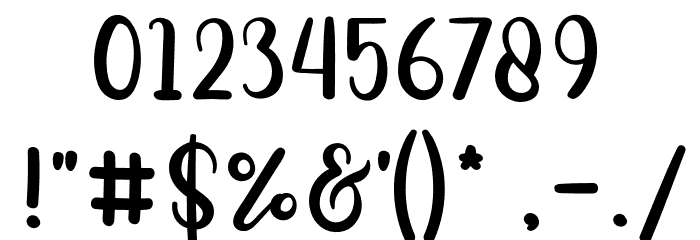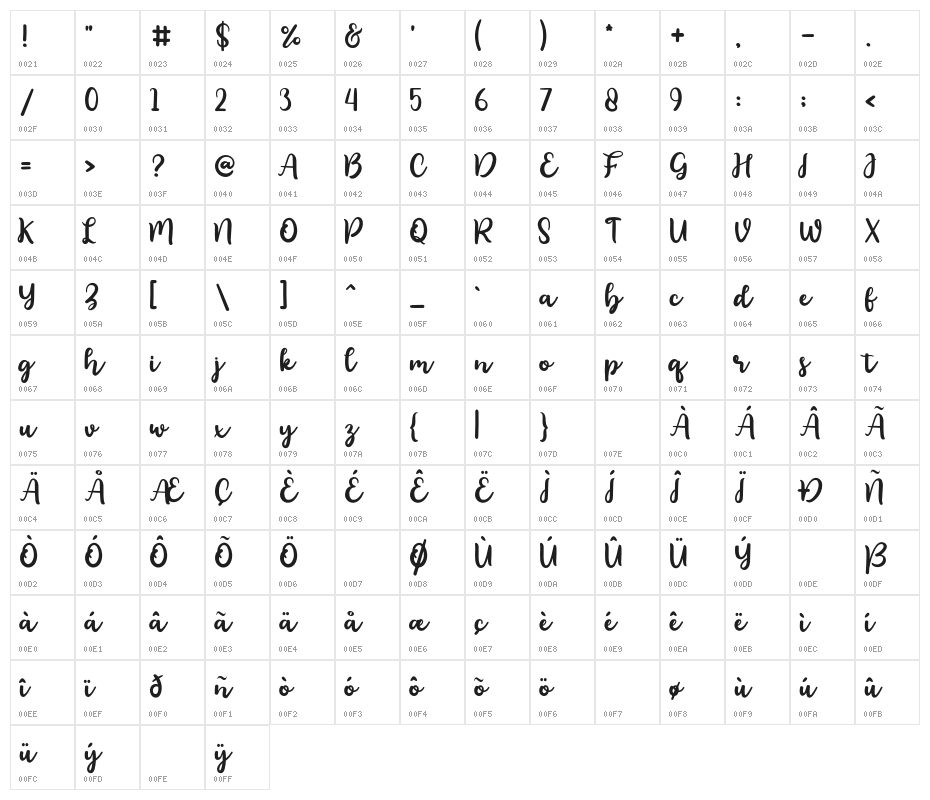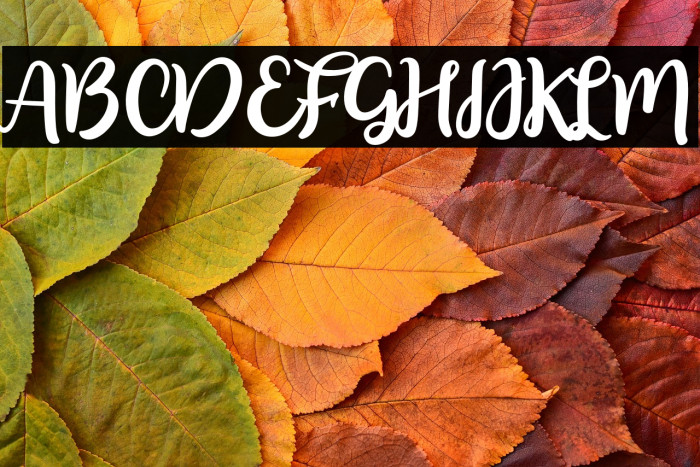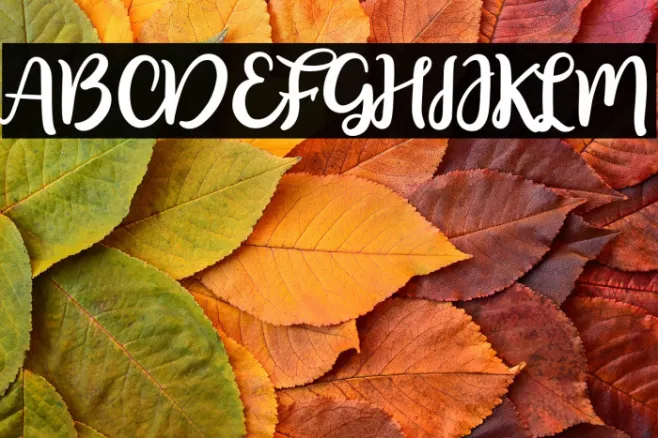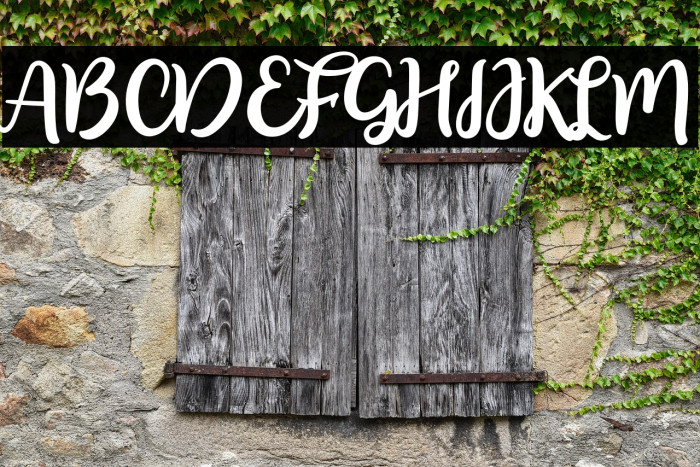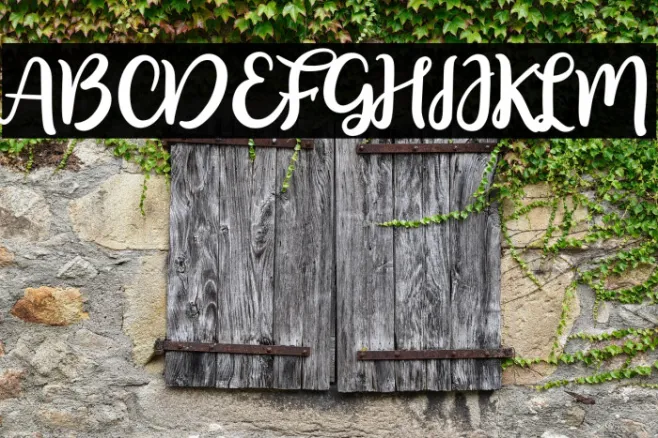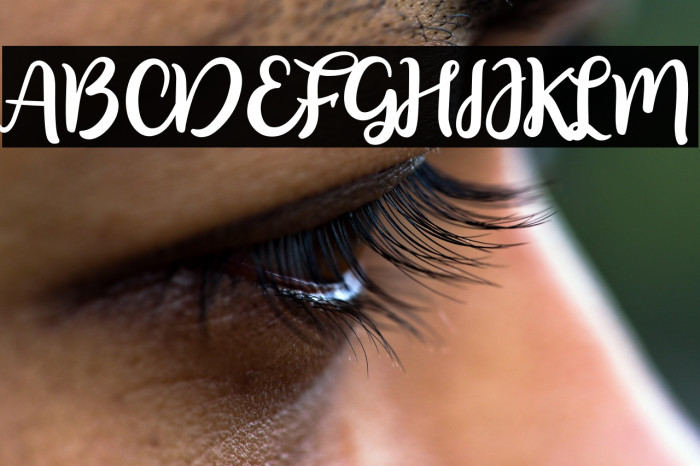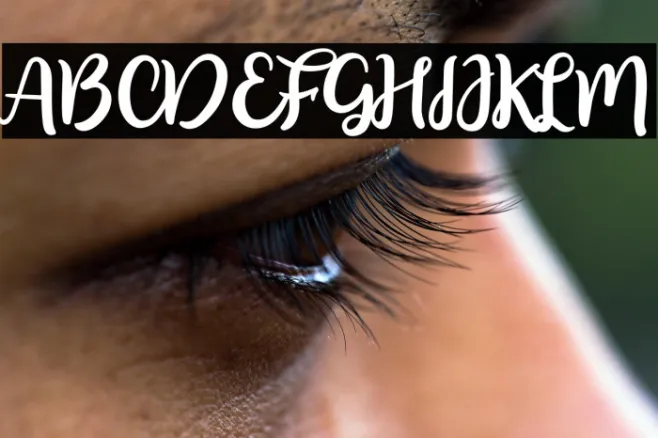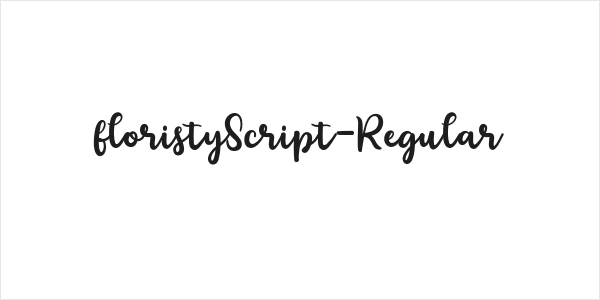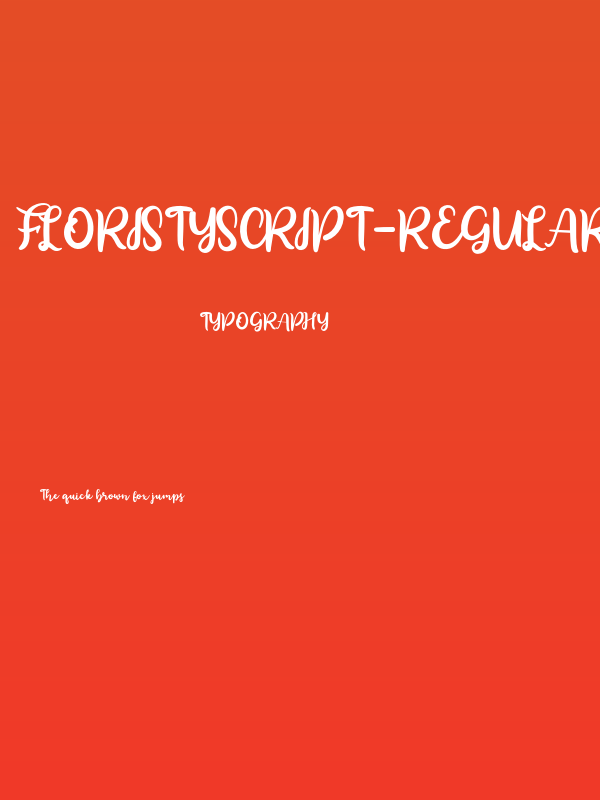
floristyScript-Regular Font
floristyScript-Regular Description
This font features a lively and flowing script style, characterized by its bold and smooth curves. The uppercase letters are elegantly crafted with a sense of movement, while the lowercase letters maintain a consistent flow, enhancing readability. The numbers and special characters are designed to complement the overall script style, adding a touch of sophistication. The font's playful yet refined appearance makes it suitable for creative and artistic projects, providing a personal and inviting touch.